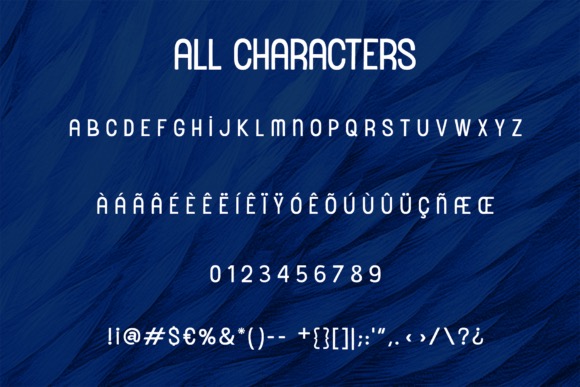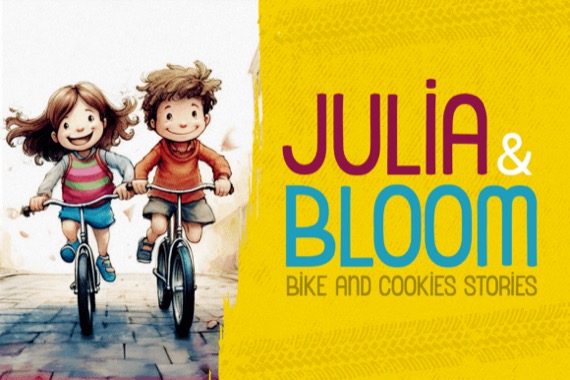
Rabito is a fun and playful sans serif font that was created and shared by Corgi Astronaut. Whether it’s a headline for a school project, a poster for a children’s event, or a catchy tagline for a toy advertisement, Rabito font guarantees that every message will make a lasting impact.
Rabito Sans Serif Font